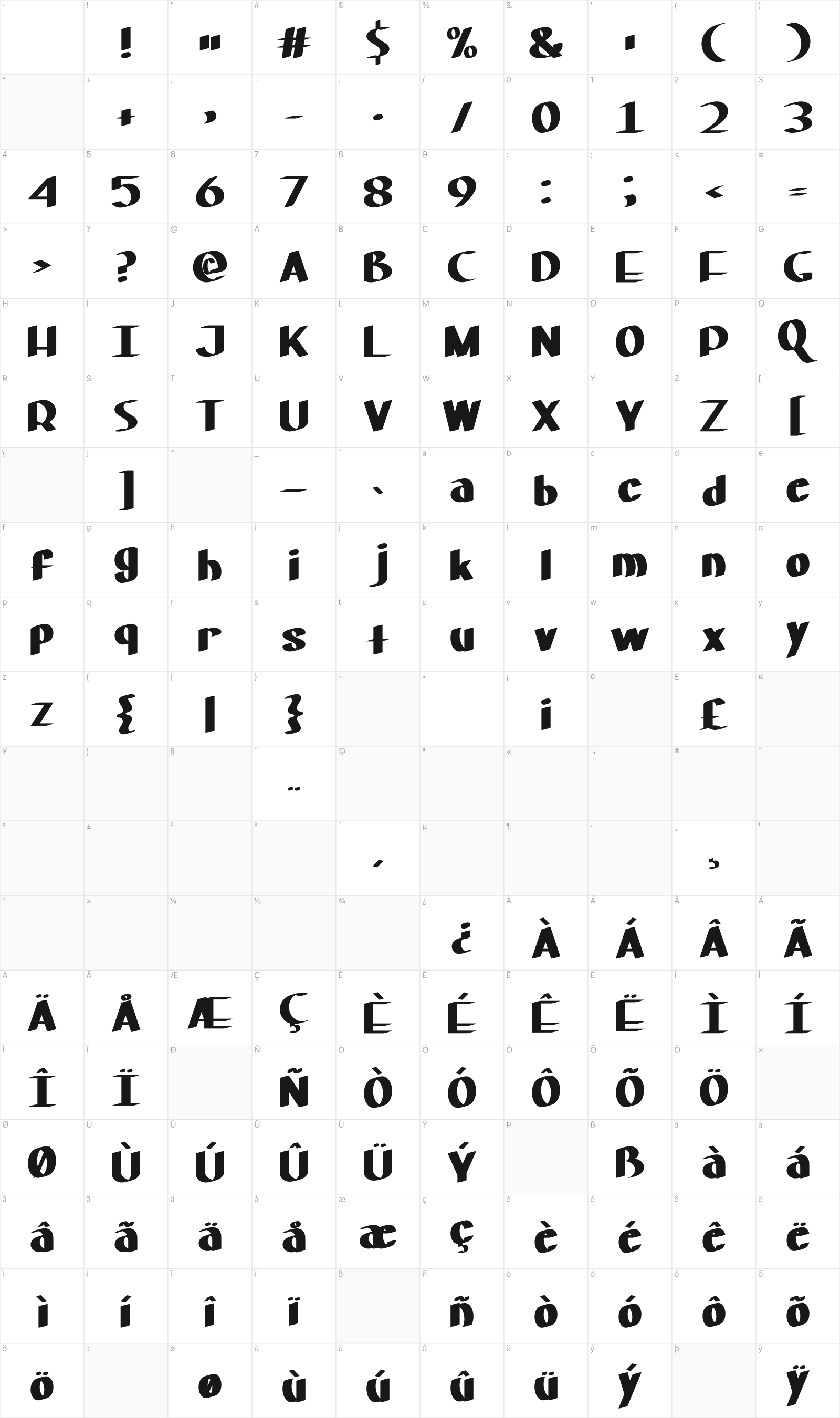
Mf Houston Paris Budapest
Mf Houston Paris Budapest is a thick, quirky display face from Misti's Fonts with bold letterforms that carry a lot of personality in their unusual shapes. The characters feel deliberately offbeat, with exaggerated proportions and decorative touches that keep things playful without losing legibility at headline sizes. Best reserved for posters, packaging, and branding where you want something eye-catching and a little eccentric.